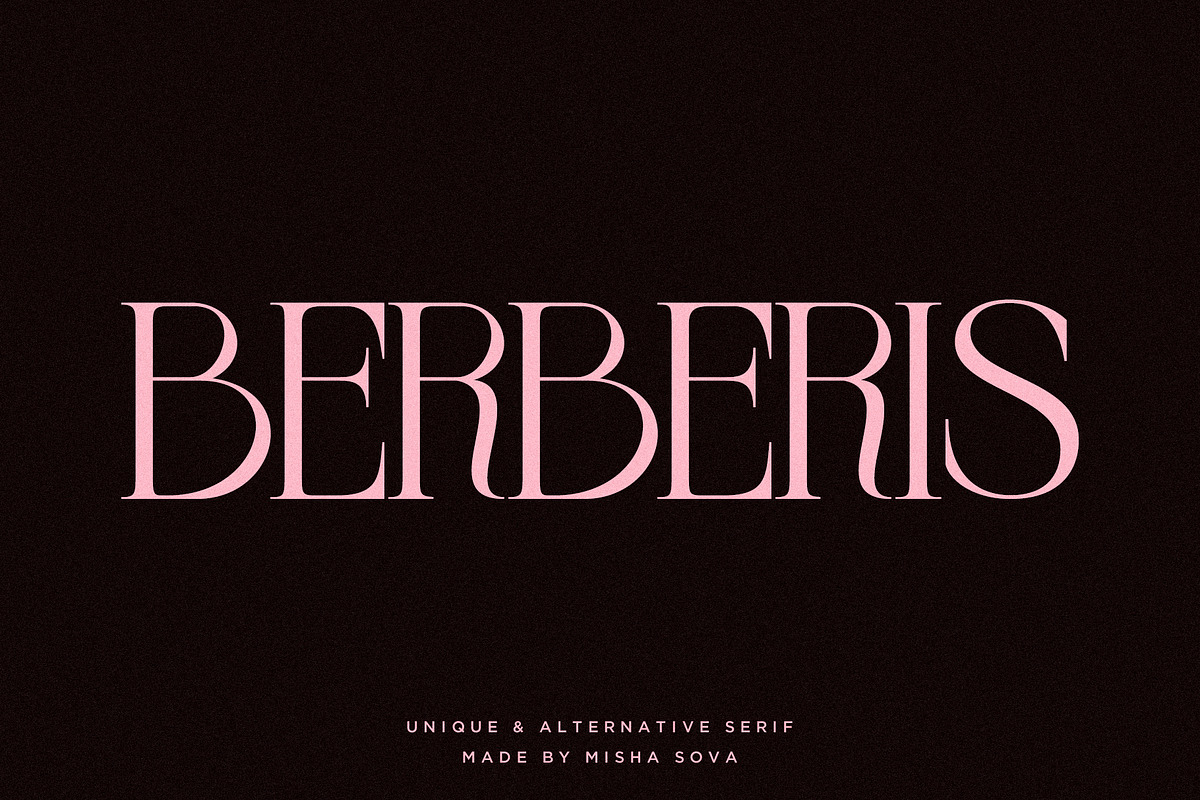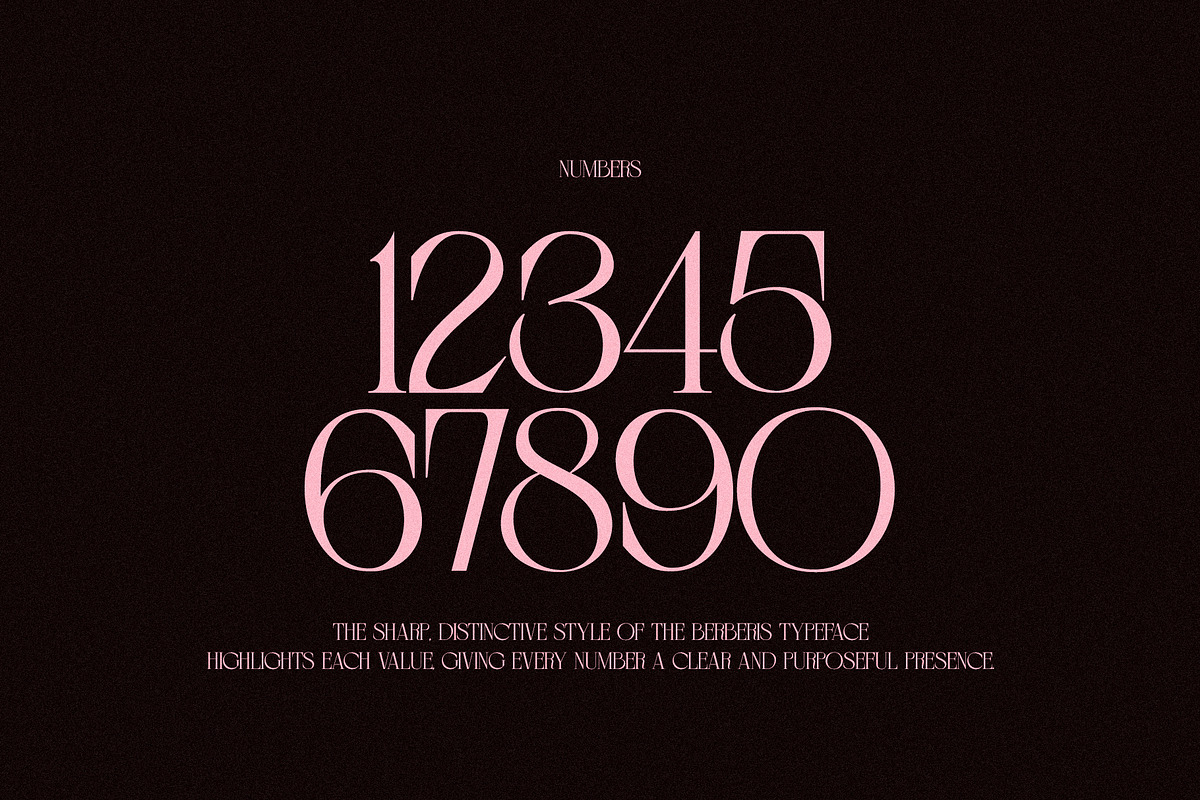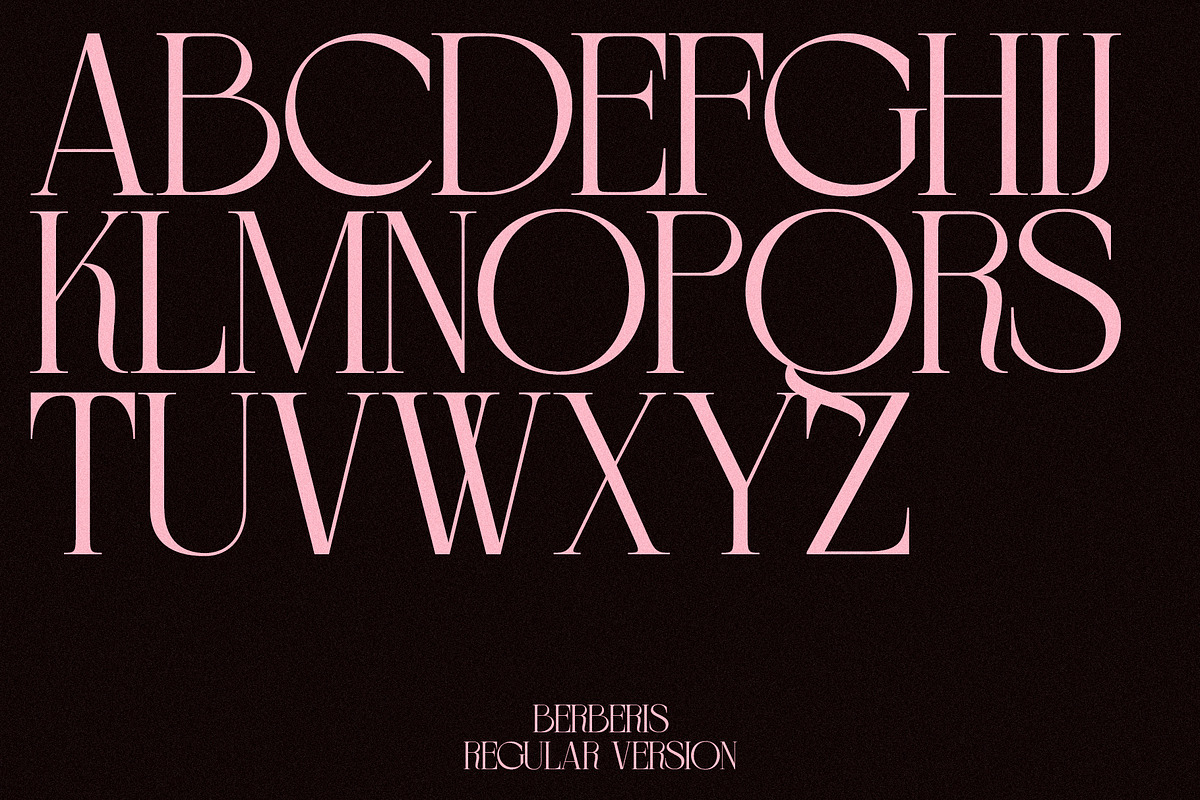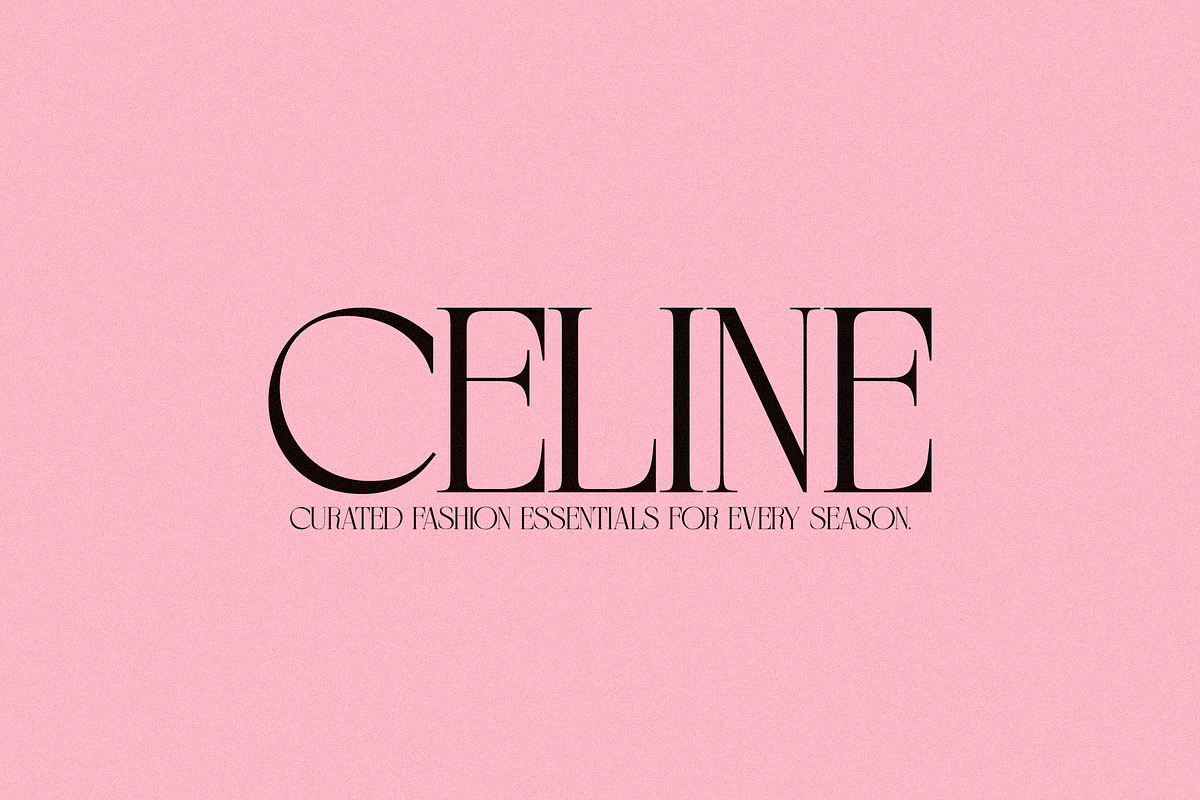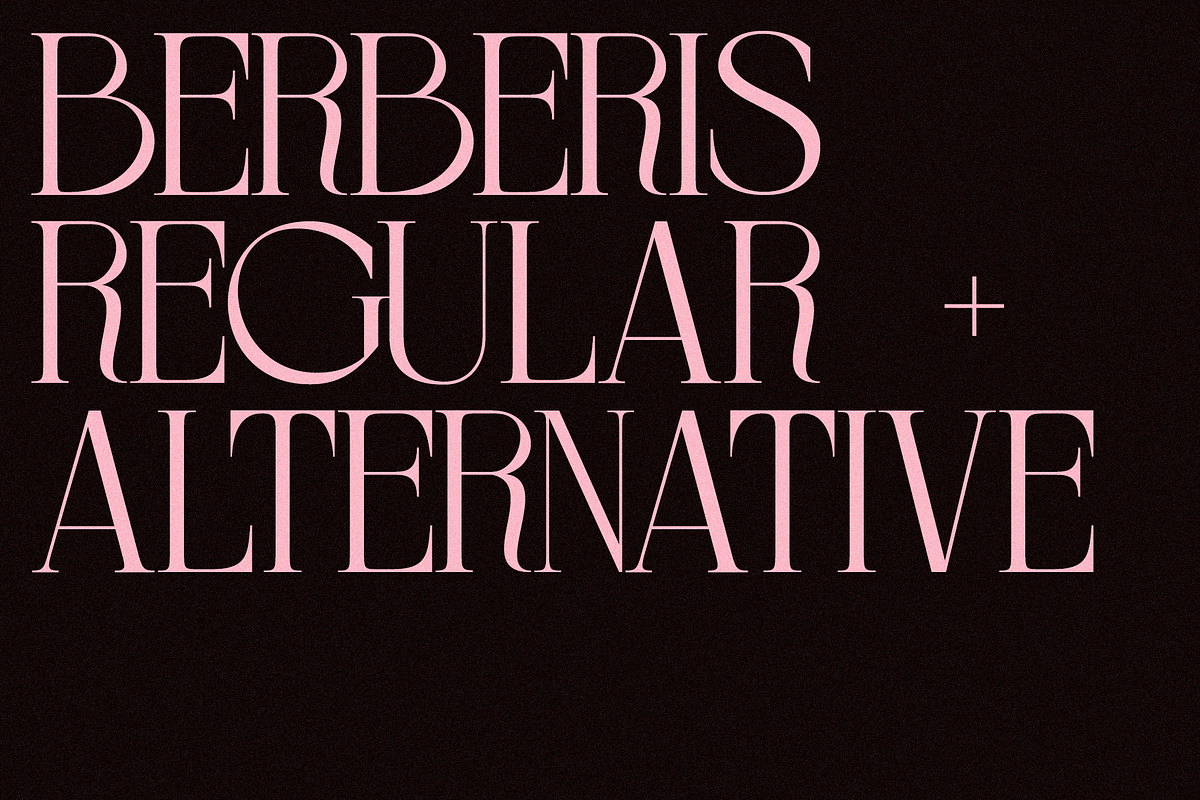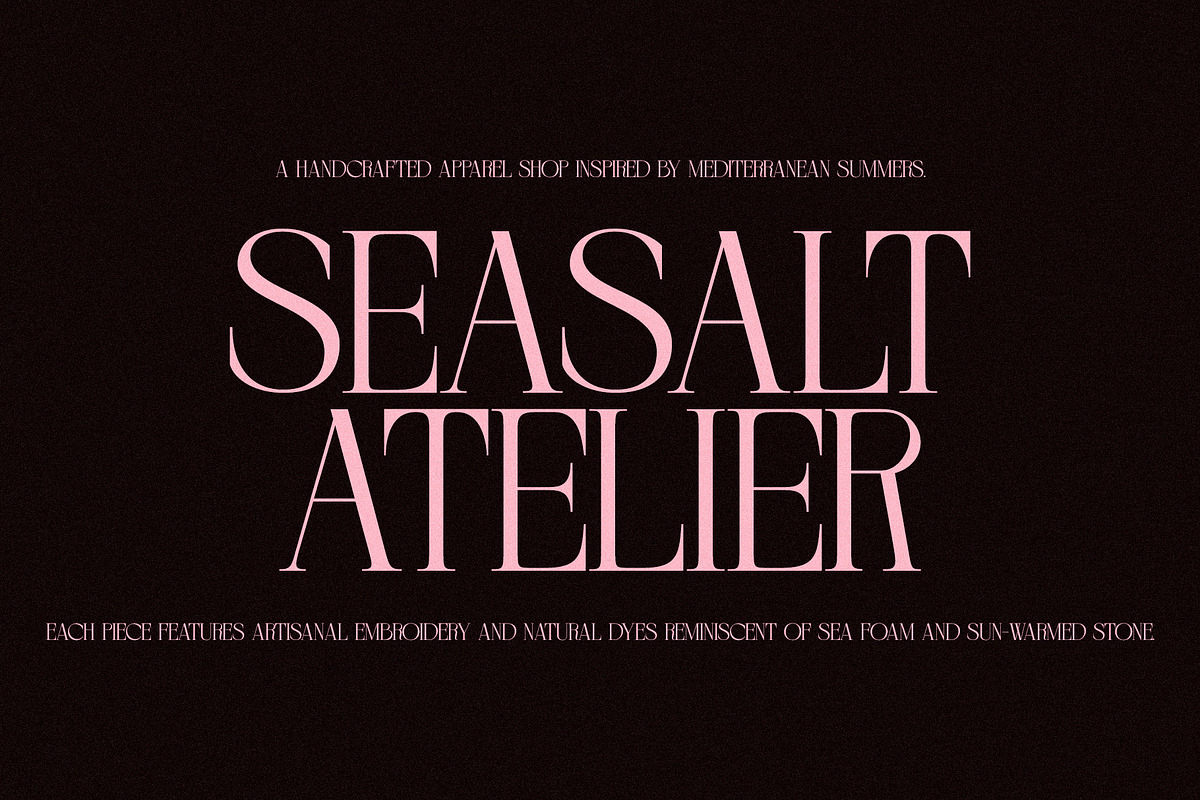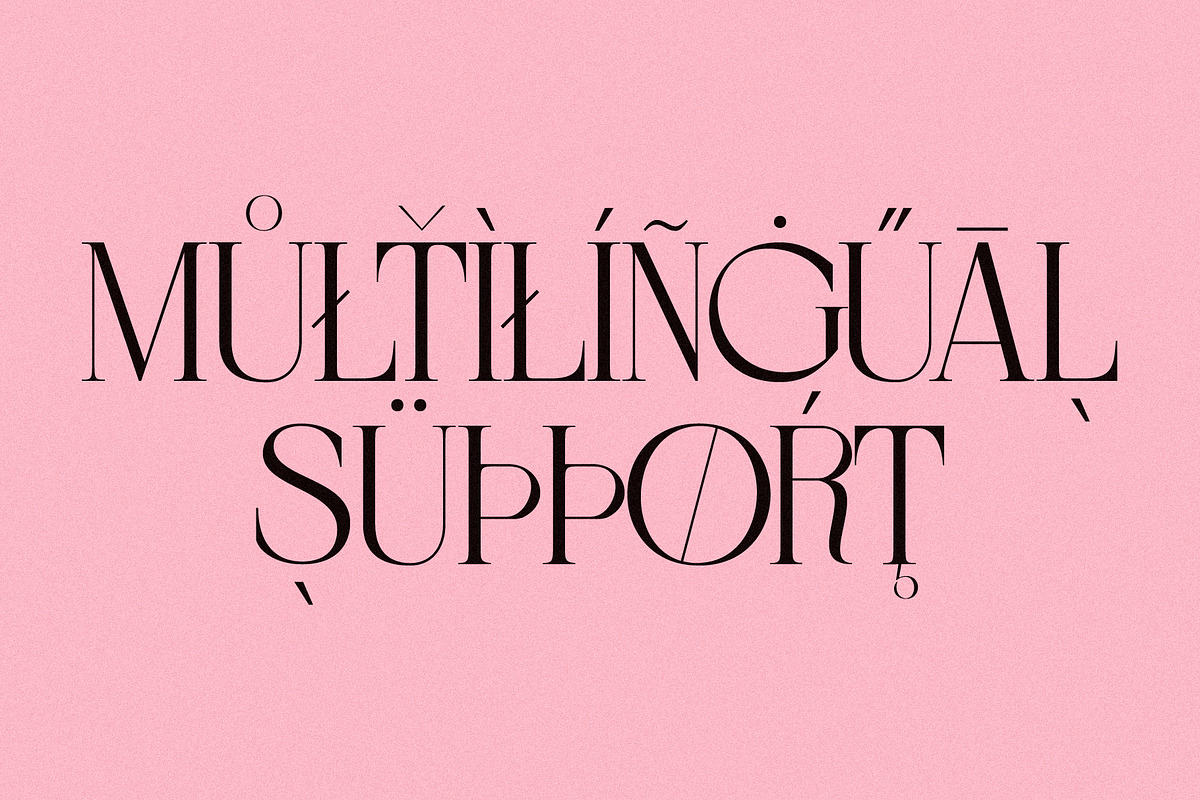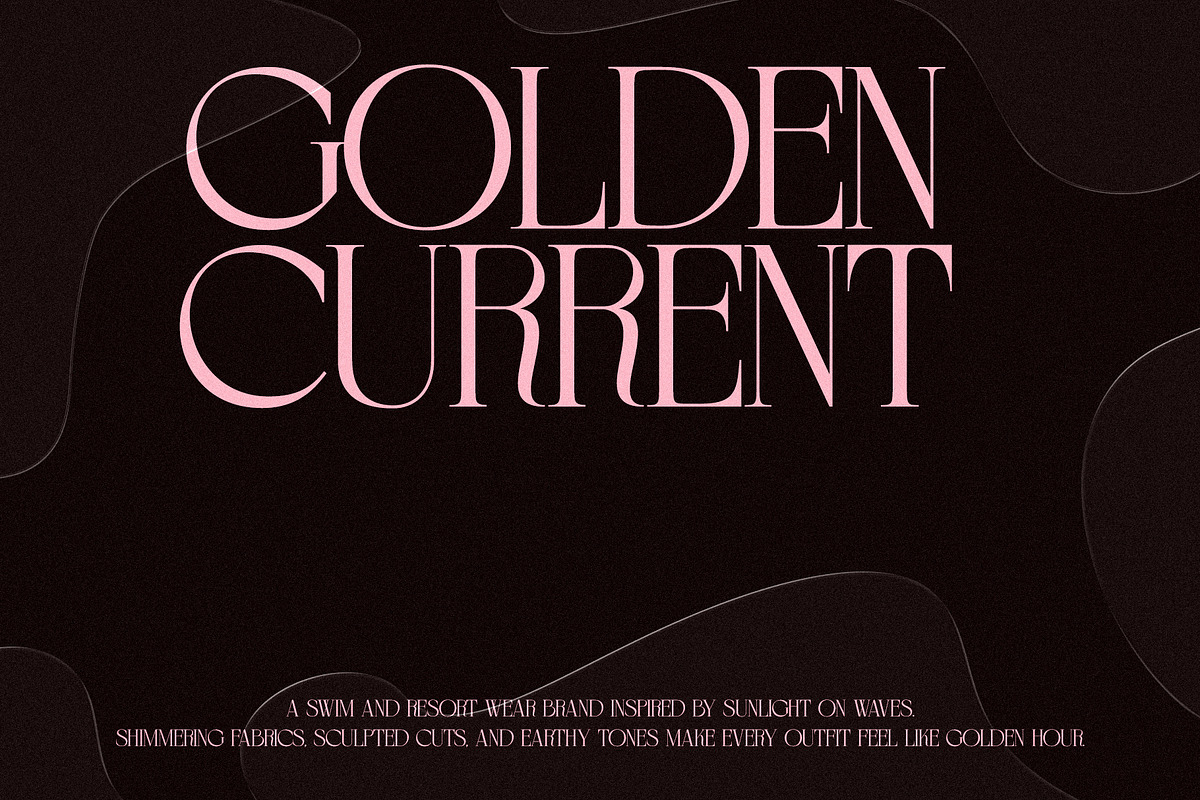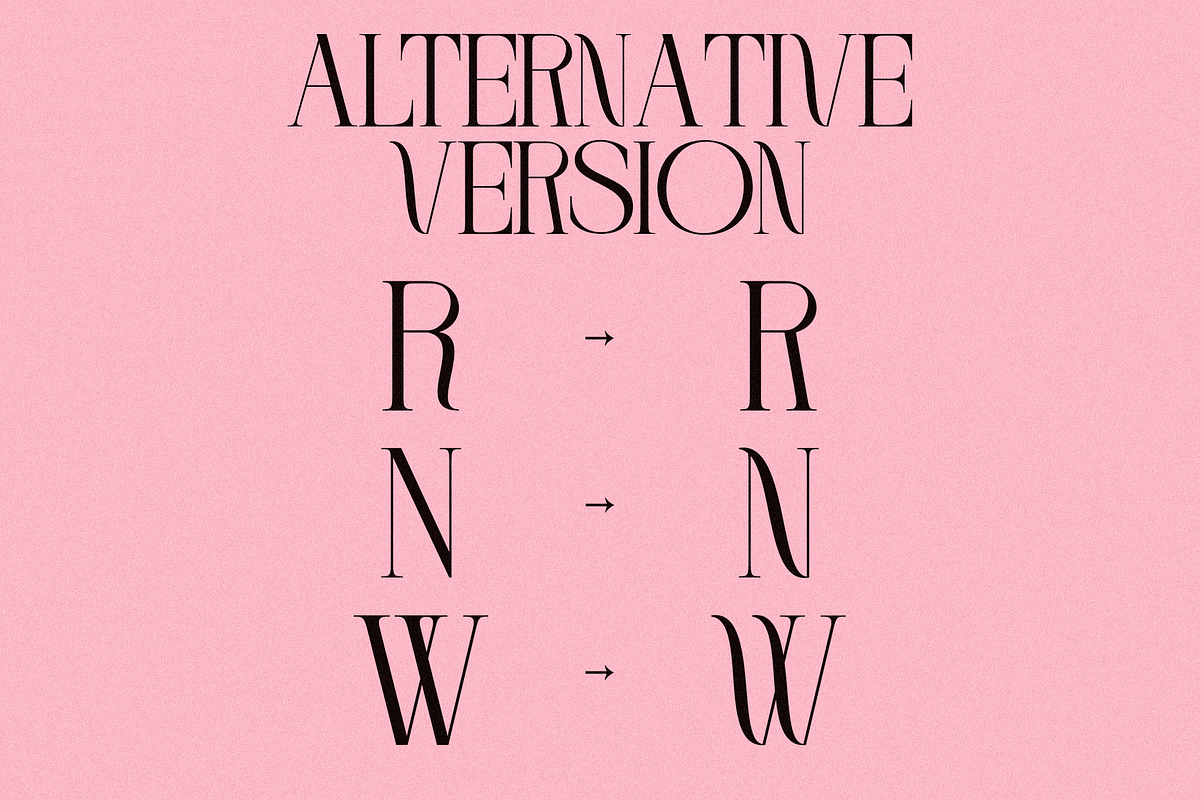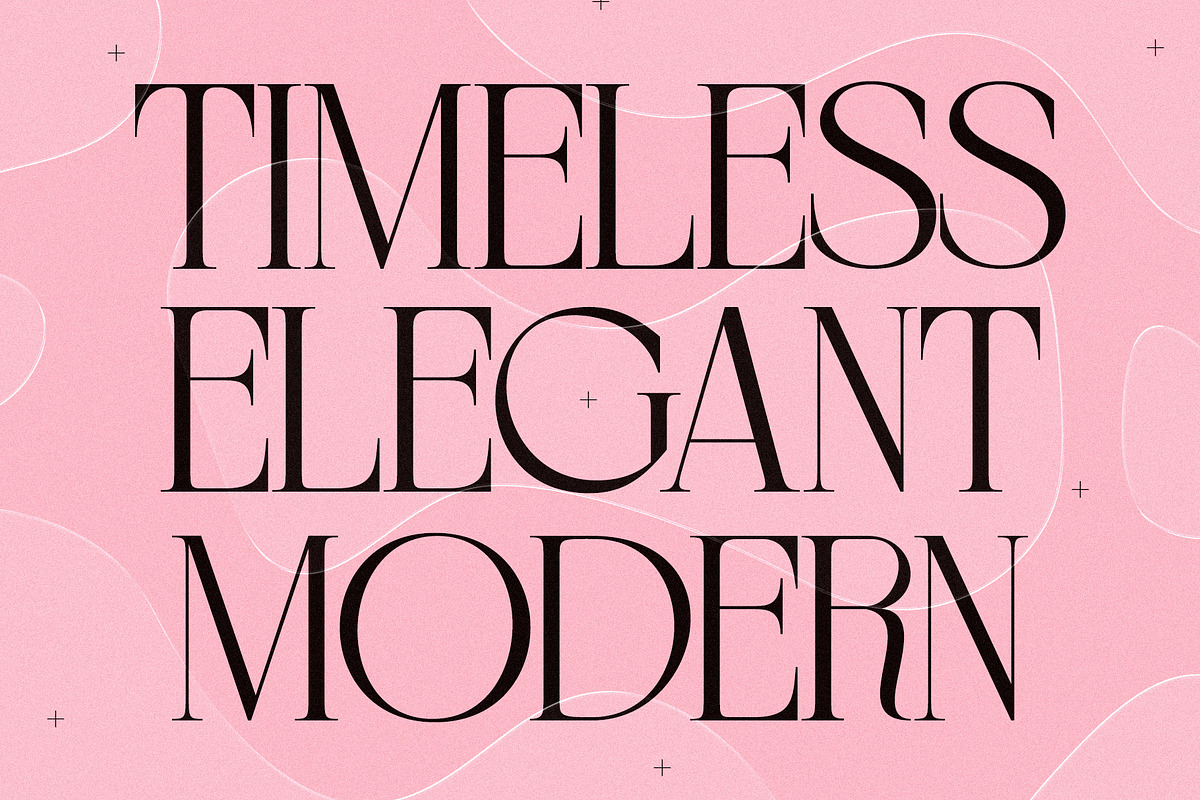
BERBERIS - Display Unique Serif
BERBERIS - Display Unique Serif by Misha Sova
Berberis is an elegant display serif crafted to celebrate curvature, contrast, and character. Its sweeping lines and sculpted serifs give the typeface a refined, decorative presence, while maintaining the clarity needed for impactful headlines and sophisticated brand identities. Each letterform embraces a gentle rhythm of curves and sharp details, creating a balance between softness and precision. The result is a serif that feels both classic and modern—ornamental yet highly readable. Ideal for editorial design, luxury branding, packaging, and any setting where typography must speak with grace and confidence, Berberis brings a sense of artistry and romantic flair to every word it shapes.
Berberis features:
- Letters
- More than 300 glyphs